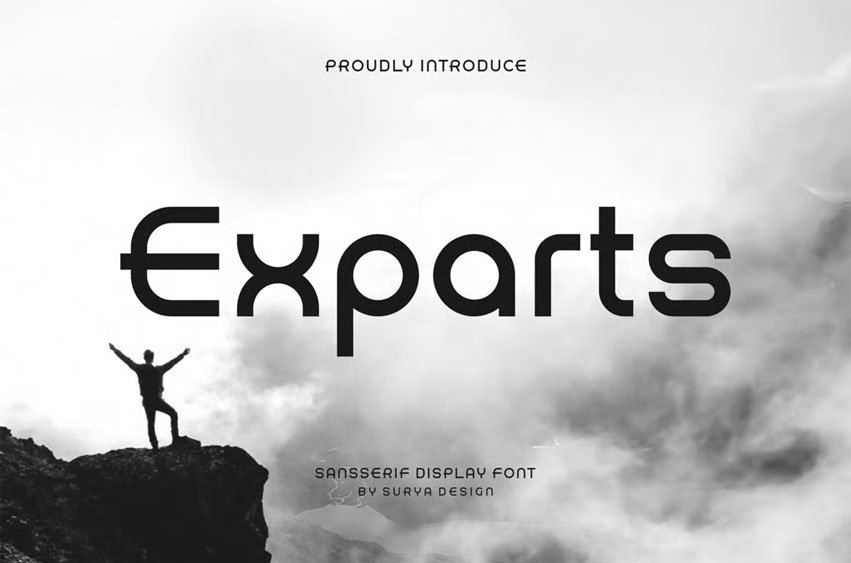
Exparts Font Modern Font is a bold and authentic display font. The font is suitable for any branding project, like logos, esport, and many more.
outstanding in a wide range of contexts.